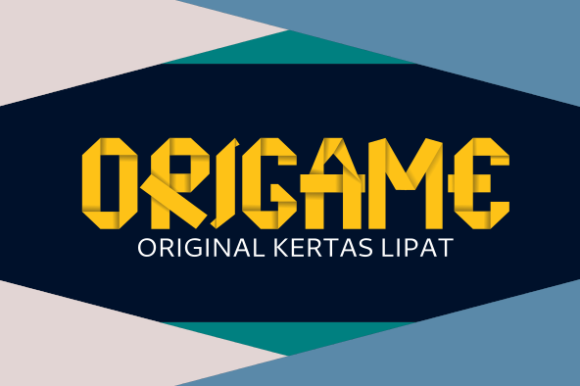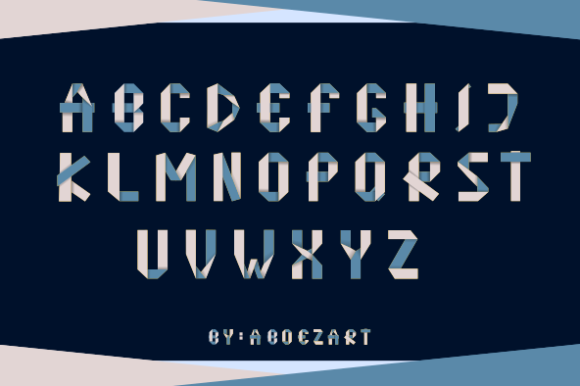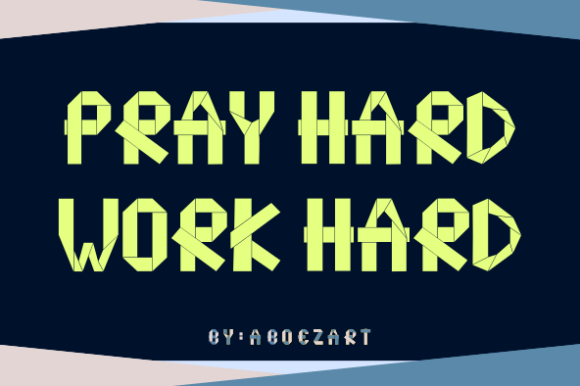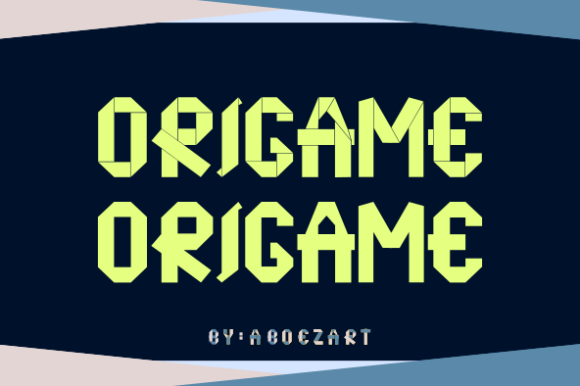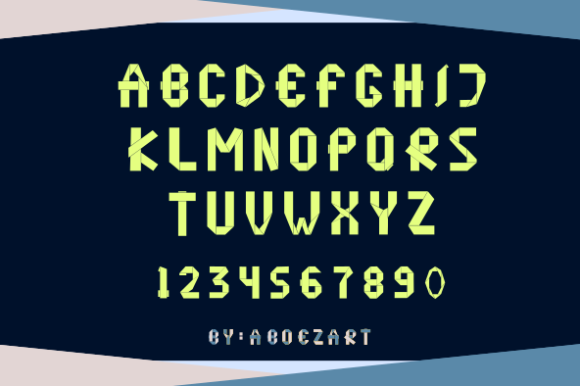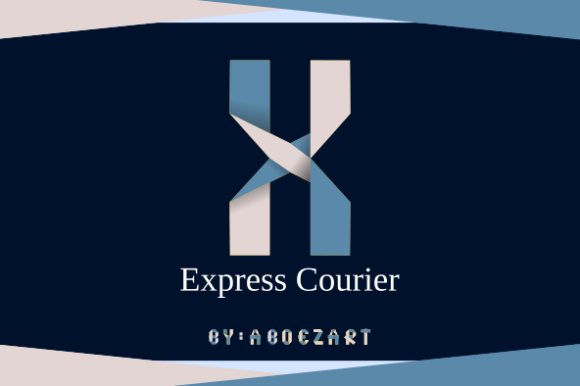
Introduction to Origame Font
You’re sitting at your desk, surrounded by scribbled notes, design concepts, and a sea of color swatches. Your creative project is hitting a roadblock, and you’re desperate for a spark of inspiration. Suddenly, a simple yet elegant design element catches your eye – the Origame Font. Its clean lines and geometric shapes evoke the timeless art of origami, transporting you to a world of precision and beauty.
As a designer, you understand the importance of having high-quality design resources at your fingertips. The Origame Font is more than just a pretty face; it’s a valuable addition to any creative project. With its transparent background and versatile style, this font is perfect for adding a modern touch to your designs. And the best part? It’s available for free download, making it an accessible design resource for designers of all levels.
Key Features of Origame Font
- Transparent background, allowing for seamless integration into various designs
- Designed with a unique and modern aesthetic, perfect for contemporary designs
- Resolution-independent, ensuring crisp and clear typography across different devices
- Includes a range of characters, including uppercase and lowercase letters, numbers, and punctuation marks
Honest Review: Origame Font
I recently stumbled upon the Origame Font, a free download that’s been making waves in the design community. As a designer, I’m always on the lookout for high-quality resources to elevate my creative projects.
Here’s what I love about Origame Font: ✨ It’s incredibly versatile, with a range of styles and weights that make it perfect for everything from logos to typography-heavy designs. The transparent background is a huge plus, allowing for seamless integration with any design element. Plus, the font is super easy to download and install.
While Origame Font is an excellent design resource, I do have a few minor quibbles: ⚠️ The font doesn’t include as many language support options as some other high-end fonts, which can be a limitation for international design projects. Additionally, some users may find the font’s minimalist aesthetic too simplistic for certain design applications.
Overall, I’m really impressed with Origame Font. It’s a fantastic addition to any designer’s toolkit, and its free download status makes it a steal. If you’re looking for a high-quality, easy-to-use font for your creative project, Origame Font is definitely worth checking out.
- High-quality, versatile font
- May not include full language support
- Some users may find the aesthetic too simplistic
Tips for Getting the Most Out of Origame Font
Origame Font is a high-quality design resource that can elevate your creative project. To get the most out of it, experiment with different font sizes, colors, and styles. You can also combine Origame Font with other design elements, such as images and shapes, to create a unique design.
Origame Font is suitable for a variety of creative projects, including branding, marketing materials, and social media graphics. You can also use it for free download and personal projects, such as posters, flyers, and business cards.